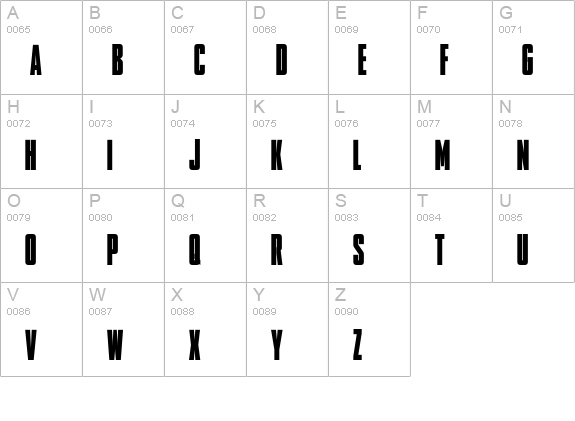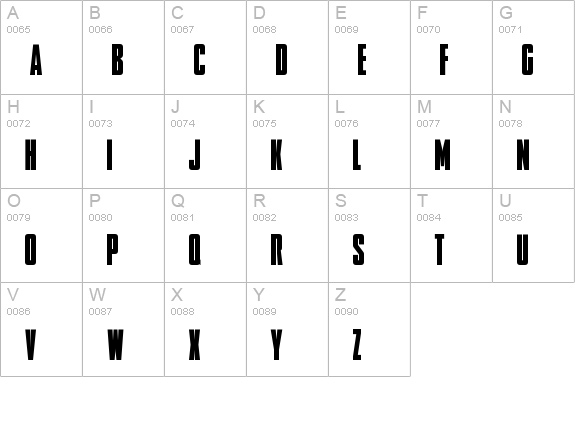
AgencyFB-BlackCompressed Font Details
AgencyFB-BlackCompressed is a sleek and modern font that exudes sophistication and professionalism. With its bold and condensed design, this font is perfect for creating impactful headlines, titles, and branding materials. The sharp edges and clean lines of AgencyFB-BlackCompressed make it a versatile choice for a wide range of design projects, from advertising campaigns to website headers. The best part? AgencyFB-BlackCompressed is available for free download at FontsMarket.com. This means you can add this premium font to your collection without having to spend a dime. Whether you're a graphic designer, marketer, or hobbyist, AgencyFB-BlackCompressed is sure to elevate your projects and help you stand out from the crowd. Download this stylish and professional font today and take your designs to the next level!